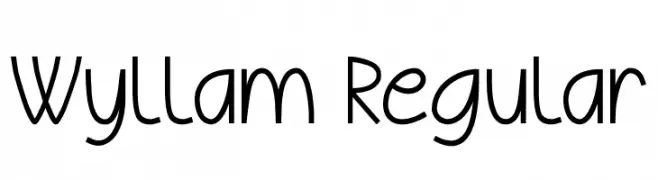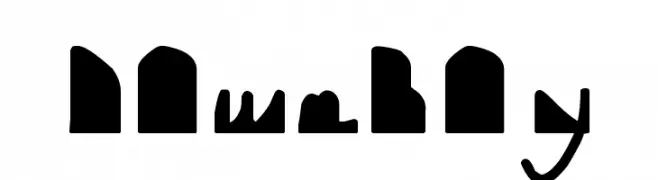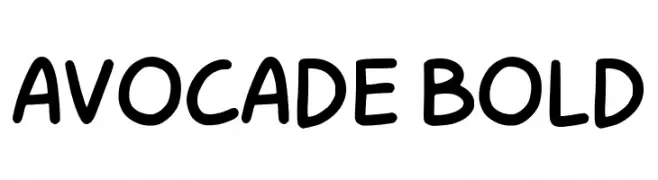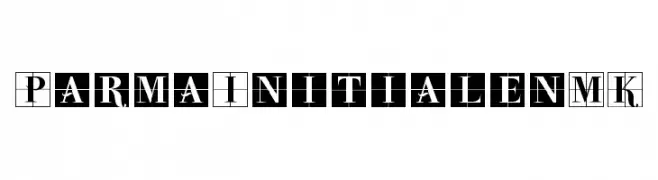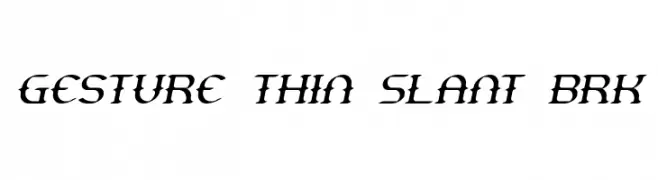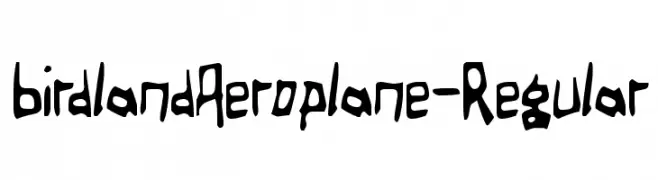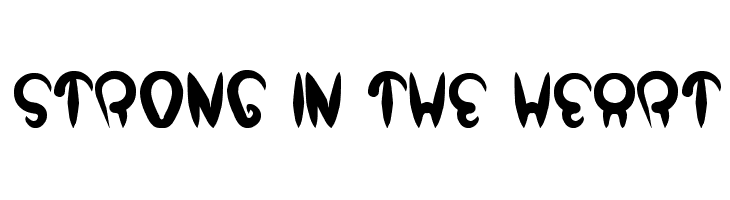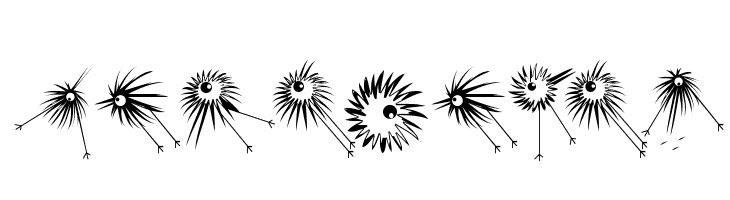
( Fonts by EvasUniqueFonts )
A playful and whimsical font with elegant curves and modern style.
A spooky, scratchy font perfect for Halloween themes.
( Fonts by Alpaprana Studio )
A bold, rounded font with a playful and approachable style.
An artistic, medieval-inspired font with sharp serifs and elegant curves.
( Fonts by Goma Shin - Shintarou Nakayama www.geocities.jp/gomarice_font/ )
A bold, futuristic font with geometric and industrial design elements.
( Fonts by Manfred Klein - manfred-klein.ina-mar.com )
An ornate and decorative font with high contrast and intricate design.
( Fonts by www.aenigmafonts.com )
A thin, slanted font with a modern and dynamic style.
( Fonts by www.typodermicfonts.com - Ray Larabie )
A bold, hand-drawn font with dynamic and irregular forms.
( Jen Jones - www.jenjonesfonts.com )
A geometric sans-serif font with a clean and modern design.